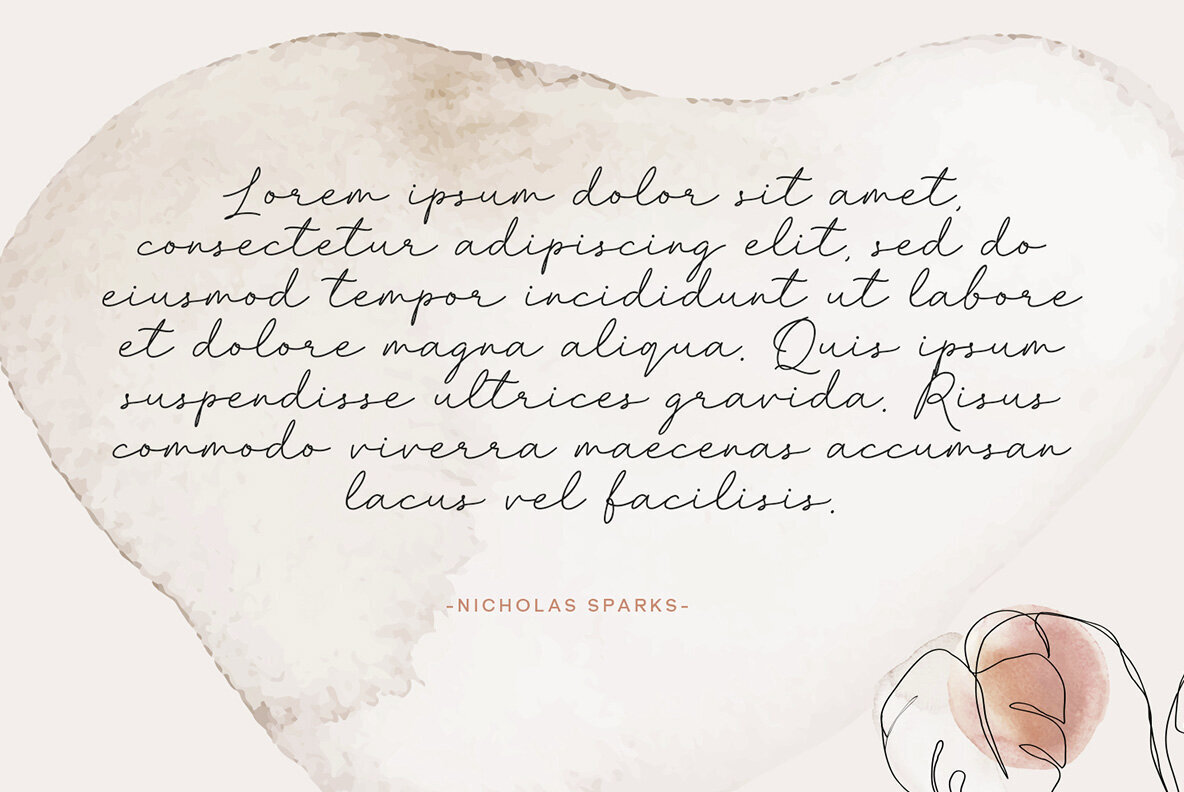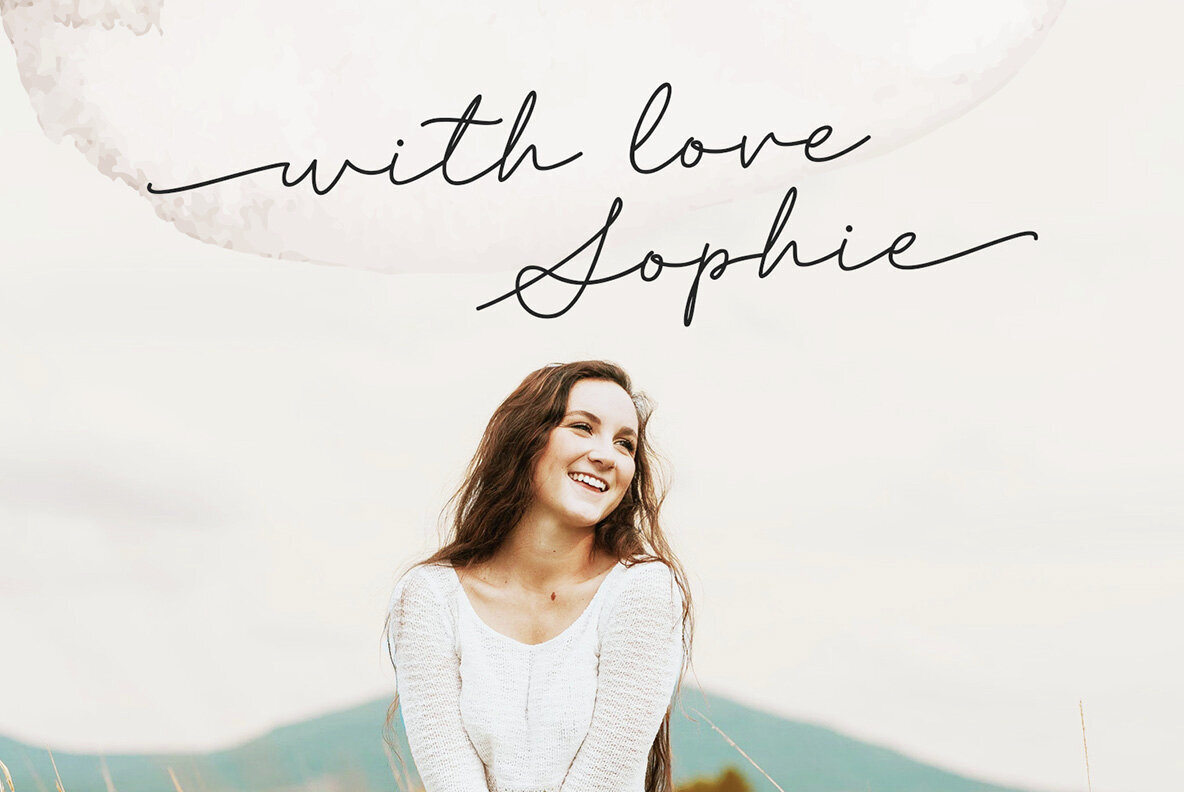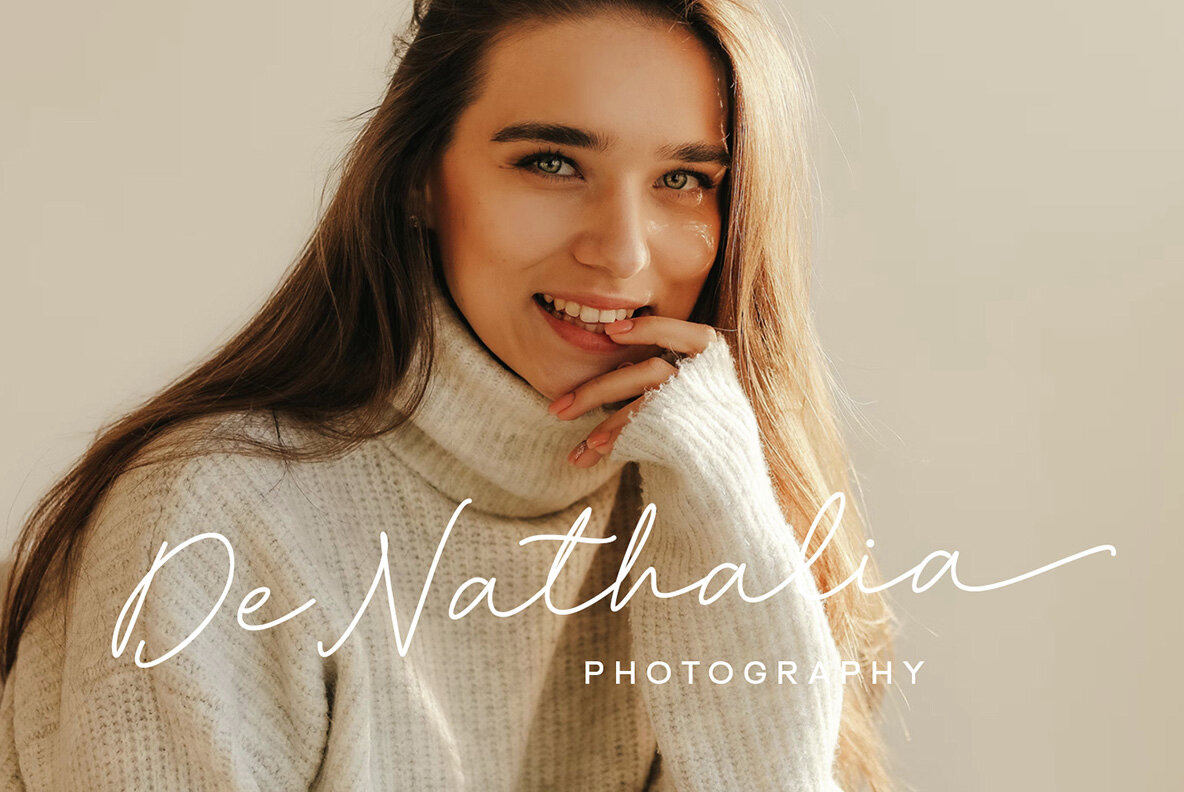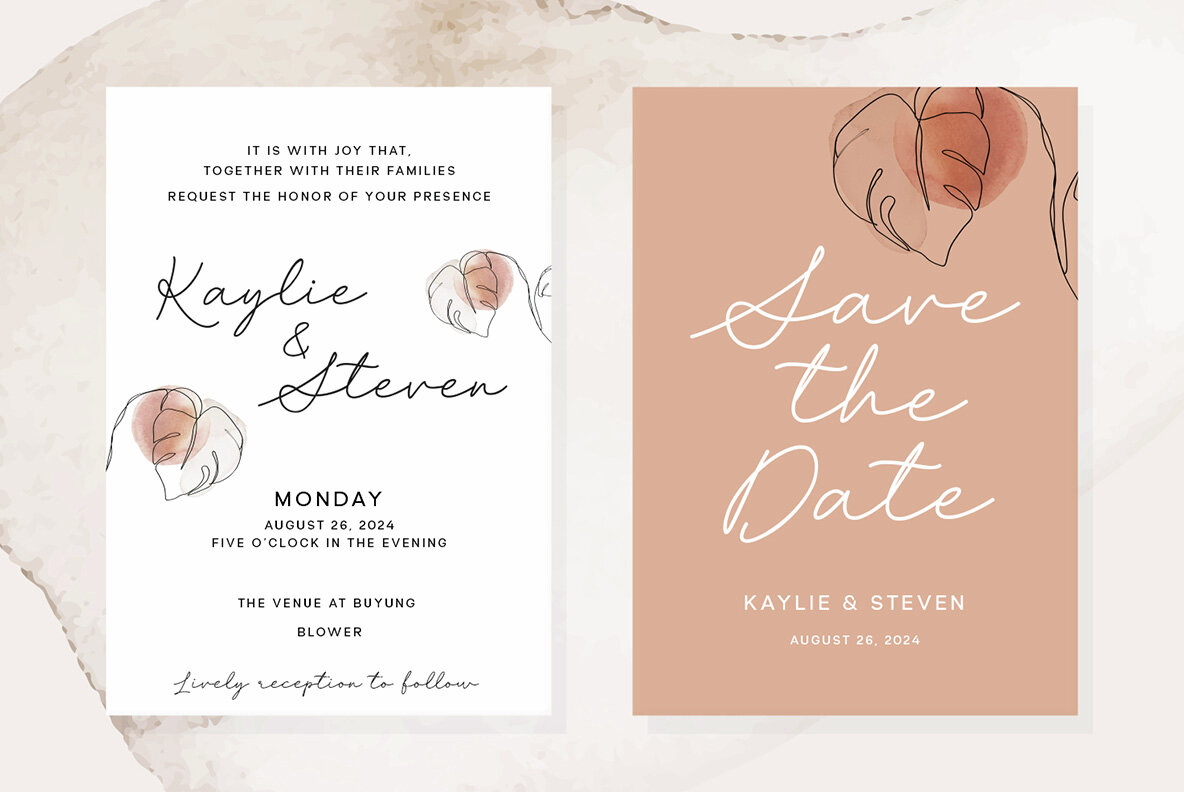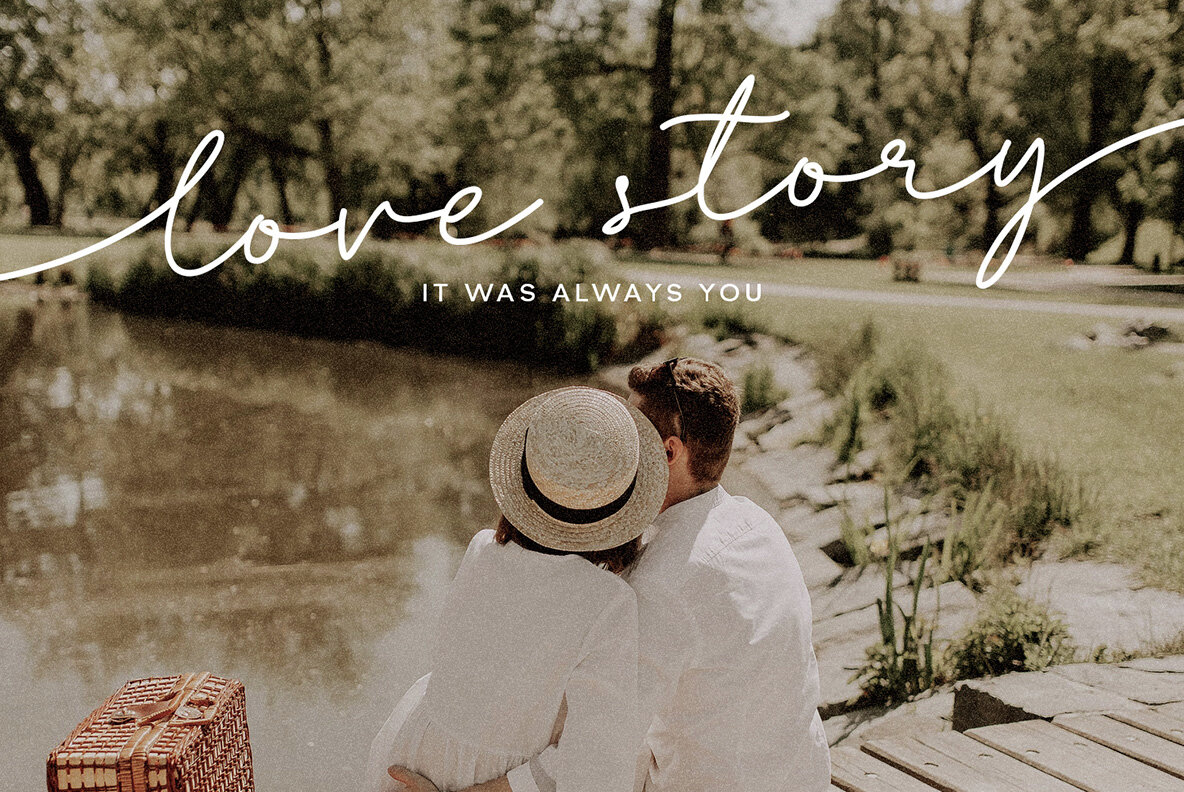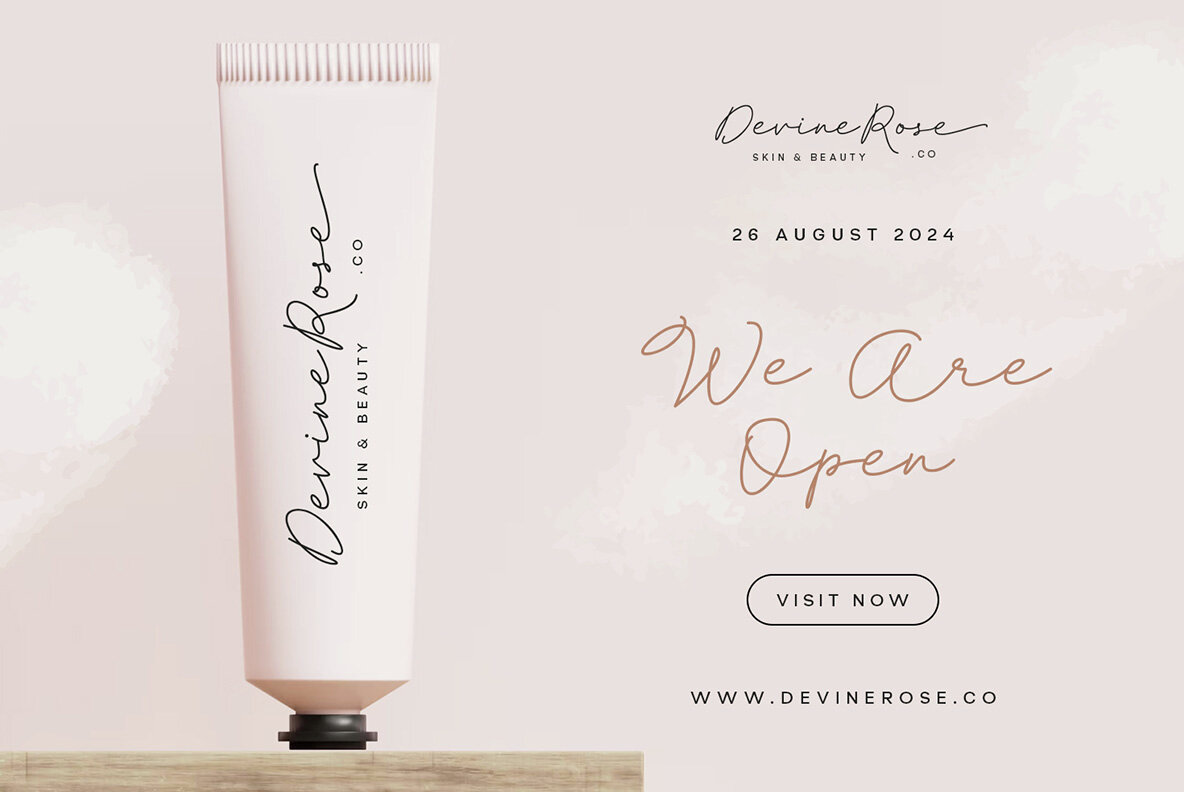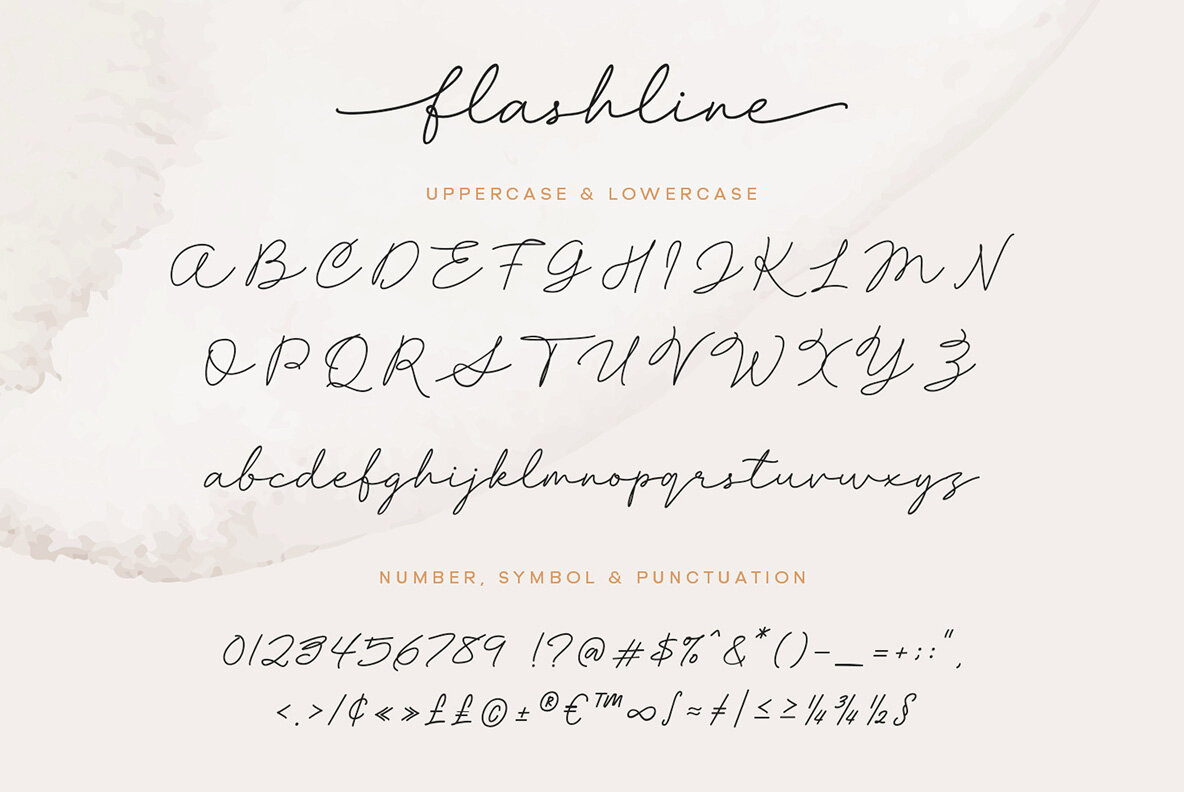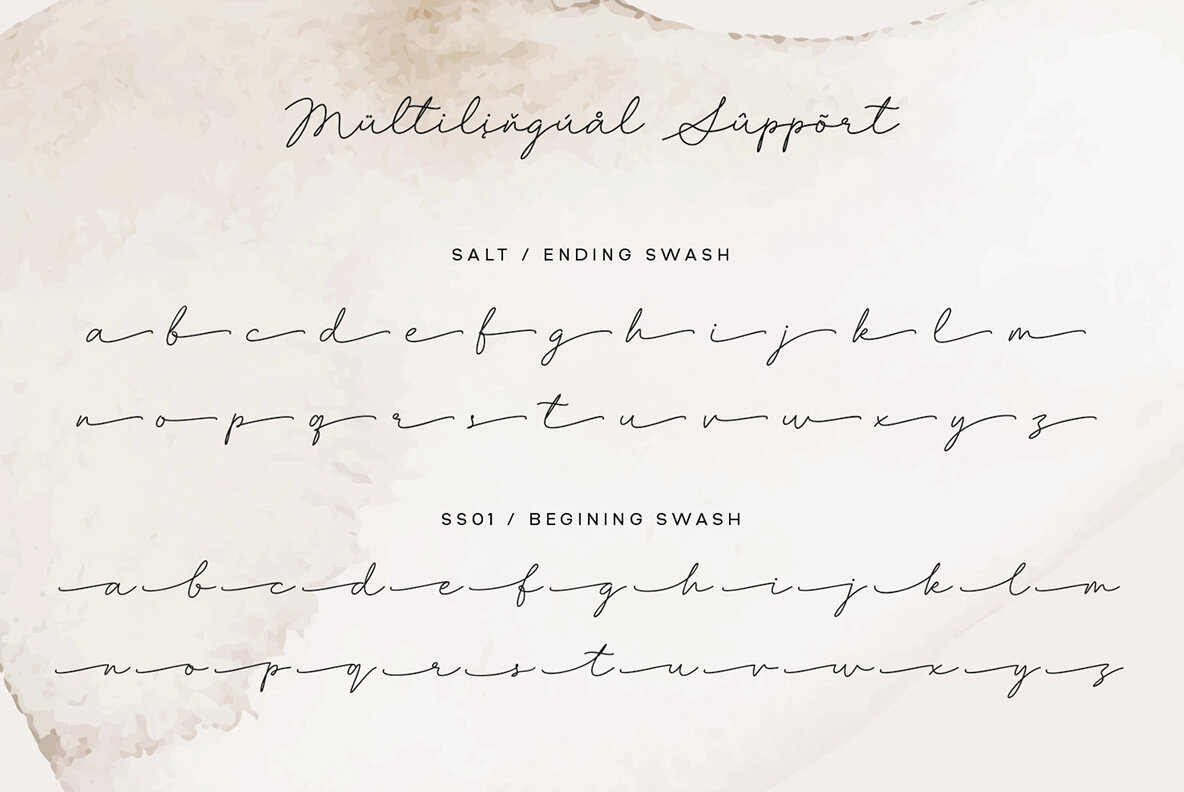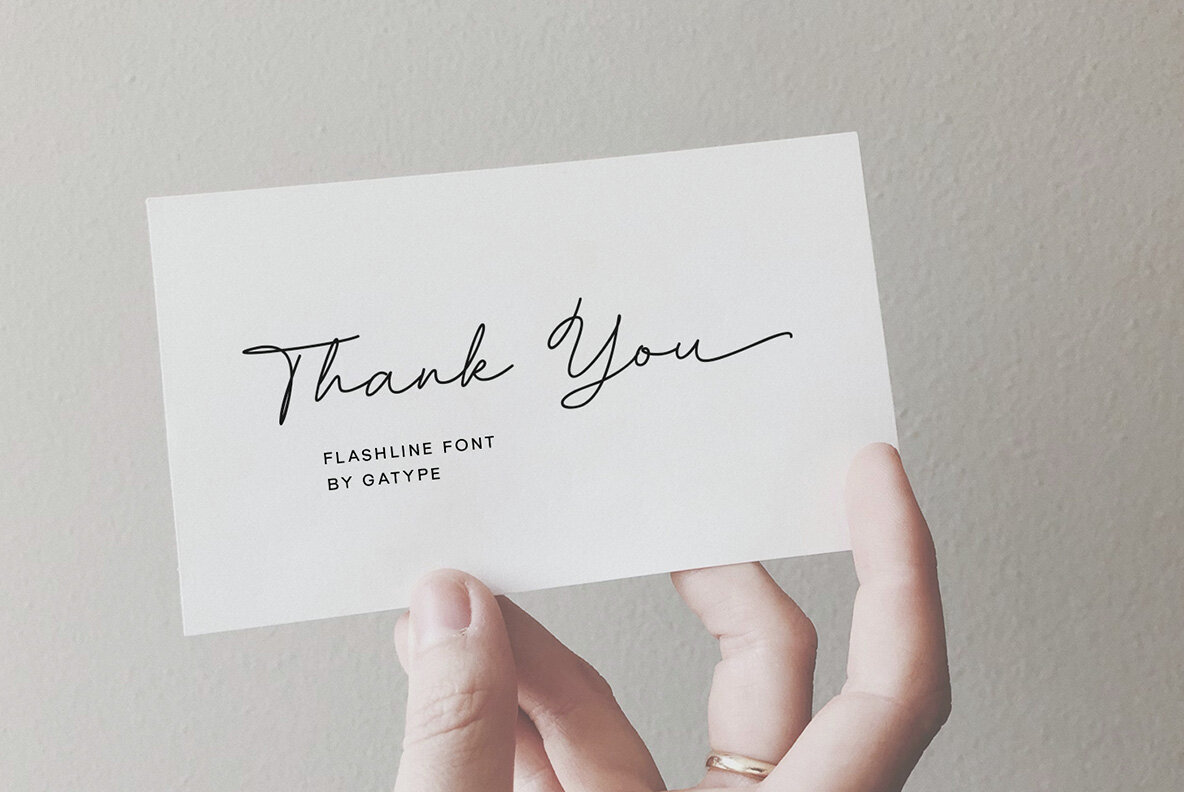
Flashline Font
Flashline Regular
Flashline is a modern and dynamic script font characterized by graceful forms and curved terminals, offering an elegant yet energetic handwriting style. Ideal for branding, logos, invitations, or any design project aiming for a casual yet professional vibe, Flashline's characters exude a light and contemporary feel. The subtle contrasts in each stroke ensure readability while contributing to its bold artistic appearance.
Perfectly blending a casual charm with a professional edge, Flashline adds an appealing touch to any design. Its easy-to-read structure paired with an artistic flair makes it a versatile choice for designers looking to inject personality and style into their work. Whether for print or digital projects, Flashline provides a distinctive and engaging script option that stands out.